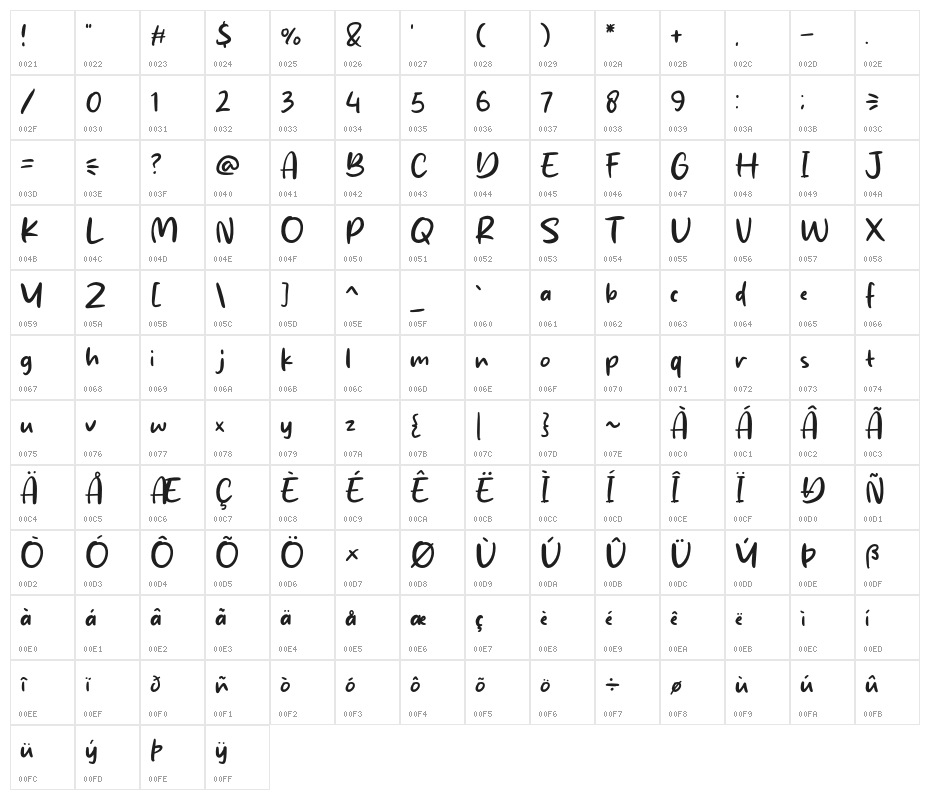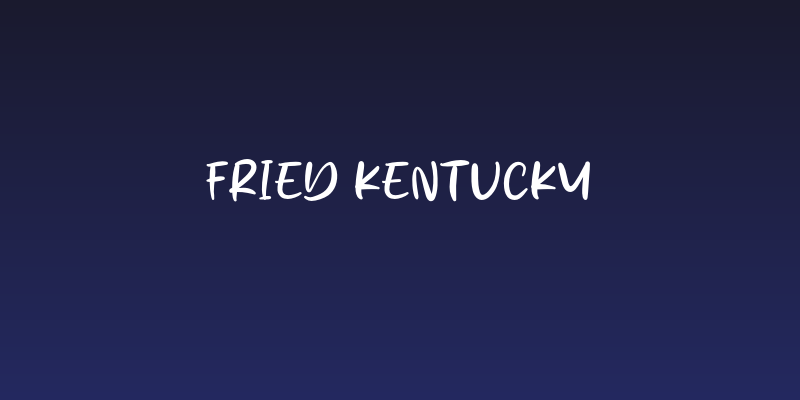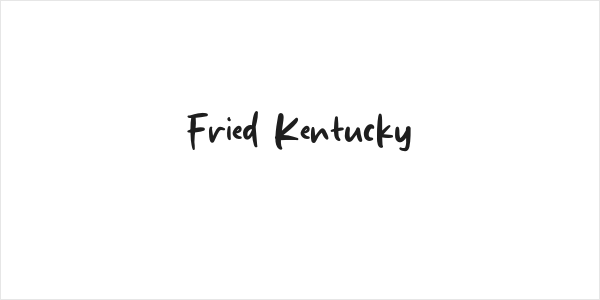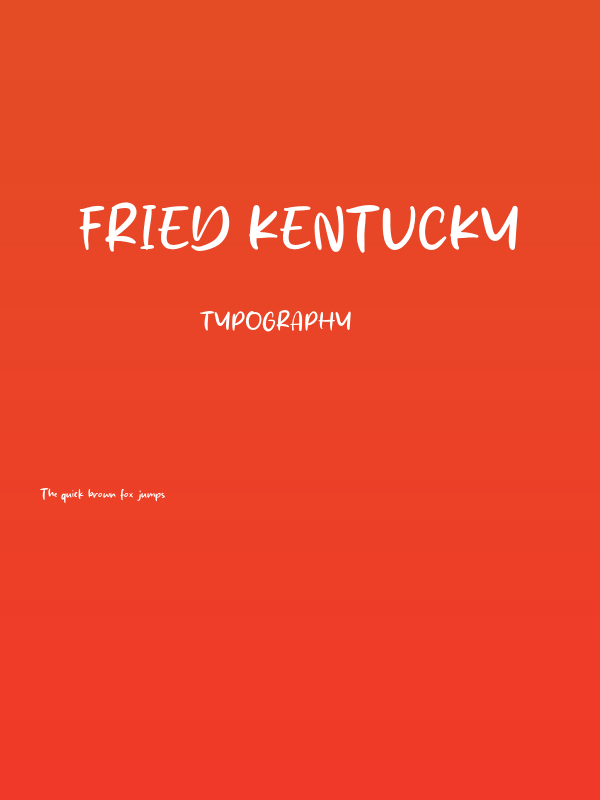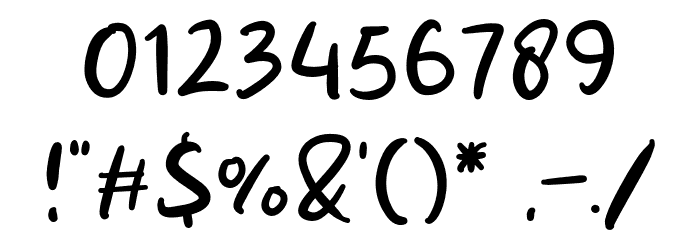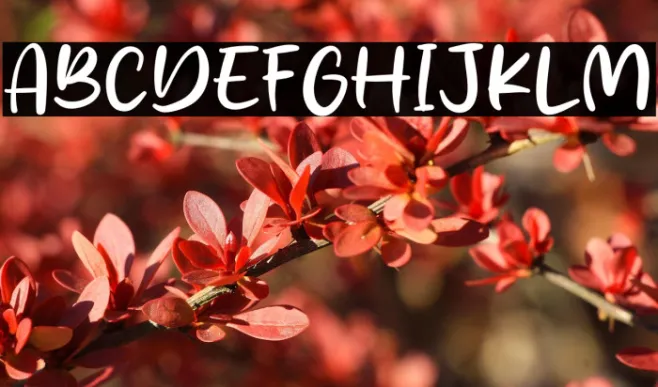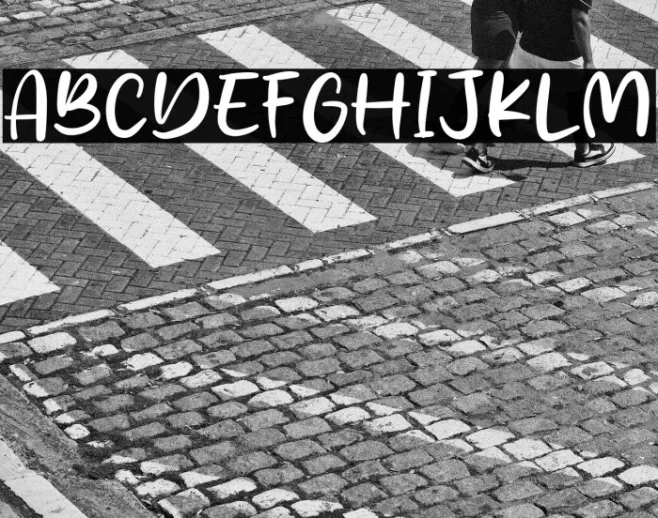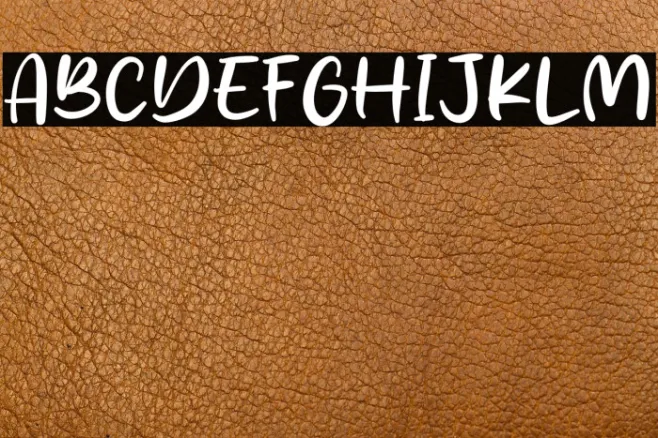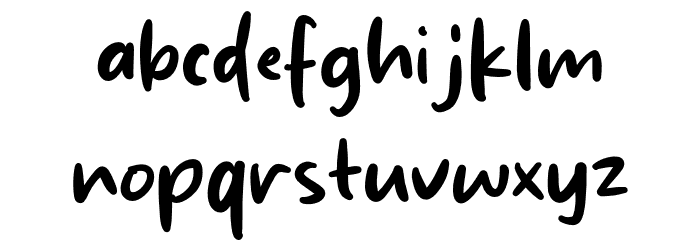
Fried Kentucky Font
Fried Kentucky Description
This font exudes a playful and casual handwritten style, characterized by its smooth, flowing curves and slightly irregular strokes that mimic natural handwriting. The letters are well-rounded and maintain a consistent weight throughout, giving it a friendly and approachable appearance. The uppercase and lowercase letters are distinct yet harmoniously balanced, making it versatile for various design applications. The numerals and special characters are crafted with the same attention to detail, ensuring readability and aesthetic appeal. Its informal style makes it suitable for projects that require a personal touch.
| Use Case | Logos, Headlines, Informal text |
| Proposed Projects | Ideal for greeting cards, personal branding, casual invitations, and social media graphics. |